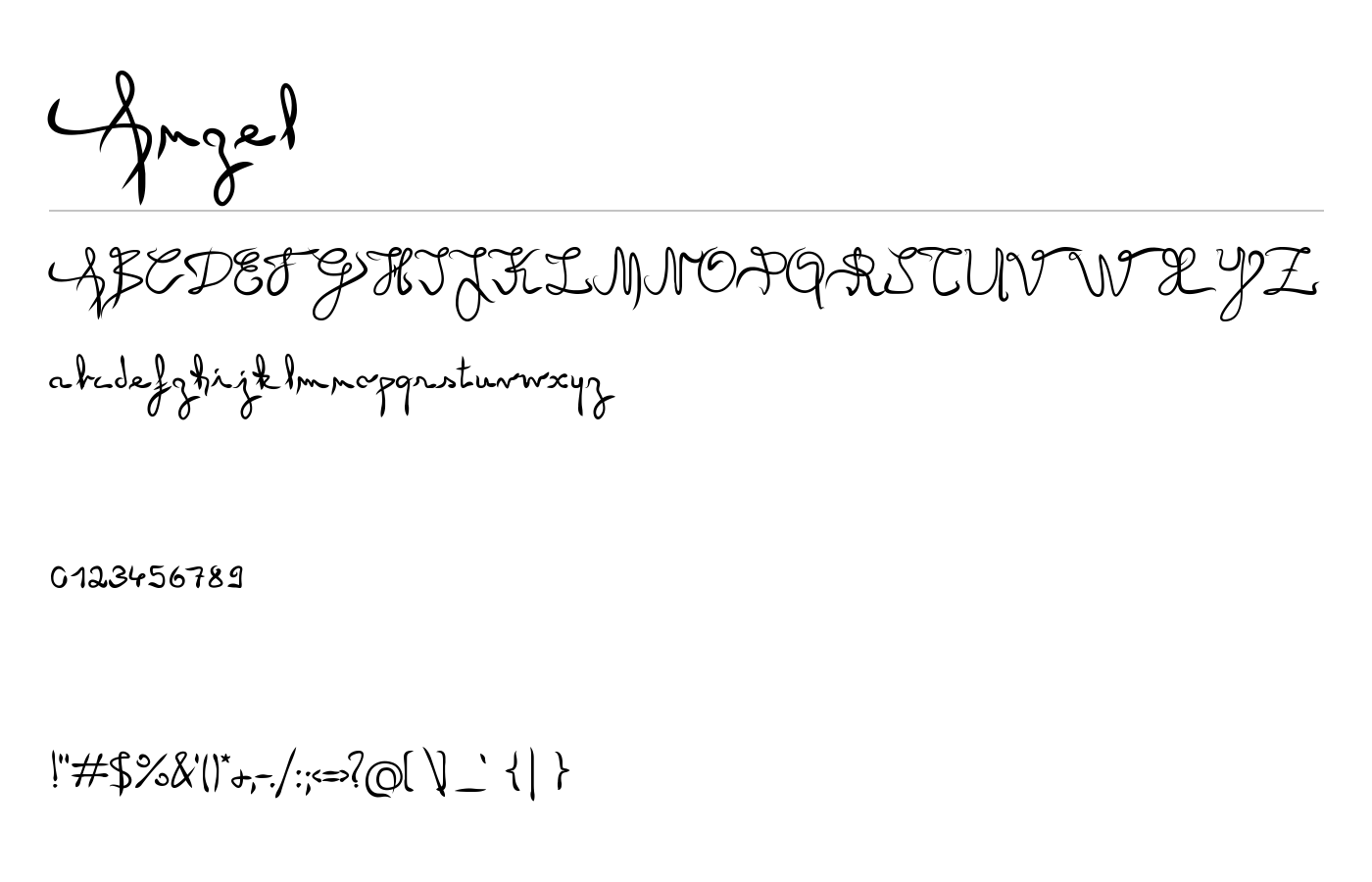
Angel Font is a delicate, handwritten script font characterized by its whimsical and flowing letterforms that combine thin, graceful strokes with playful loops and curls. Its light weight and airy style make it perfect for creative, artistic projects where a personal, elegant touch is desired, such as invitations, logos, and greeting cards. This font brings a sense of charm and individuality, ideal for designs that aim to feel intimate and expressive.
Angel Font
About Angel Font
| Designer | Rémi Godefroid |